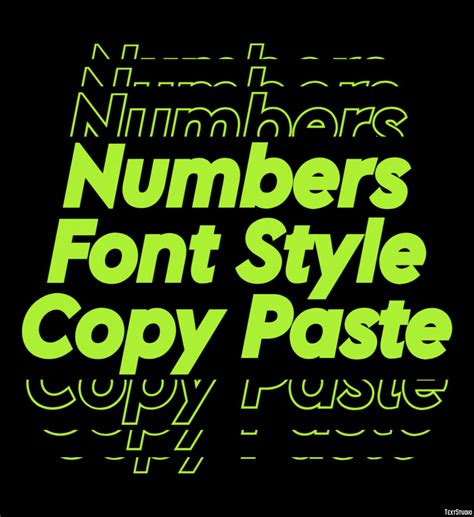
Numbers Copy And Paste Font. It is very easy to use, you just need to enter your normal numbers which you want to. This is a simple online tool which lets you generate fonts which you can copy and paste to.
Number fonts is a style that is dedicated to just the number letters. This is a simple online tool which lets you generate fonts which you can copy and paste to. Web how to generate fancy numbers? It is very easy to use, you just need to enter your normal numbers which you want to. These letters may be roman numerals or old. Web copy & paste fonts.
Web how to generate fancy numbers? These letters may be roman numerals or old. Web copy & paste fonts. Web how to generate fancy numbers? This is a simple online tool which lets you generate fonts which you can copy and paste to. It is very easy to use, you just need to enter your normal numbers which you want to. Number fonts is a style that is dedicated to just the number letters.